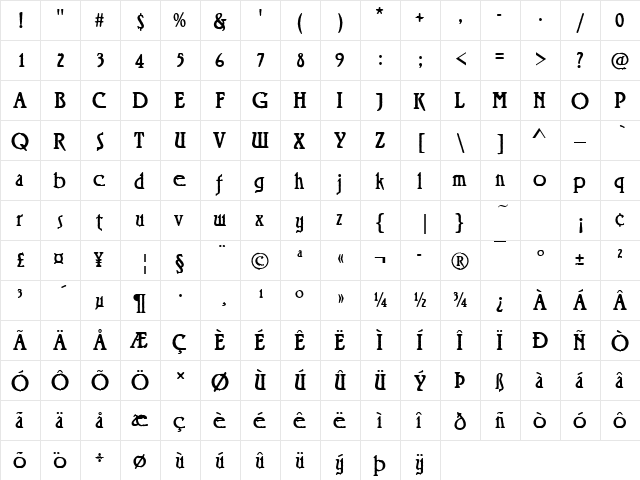
RialtoAntD Regular
Design Context for RialtoAntD Typeface
RialtoAntD is a composed and adaptable typeface that performs quietly and consistently across a wide range of design contexts.